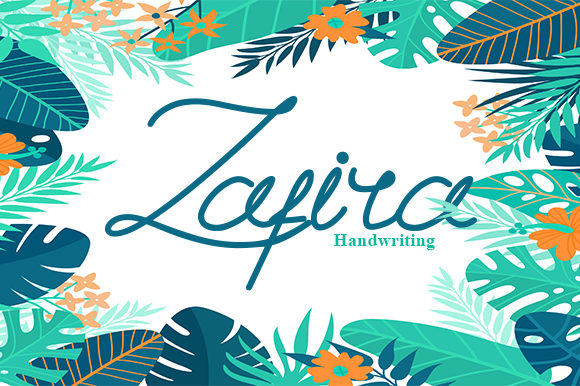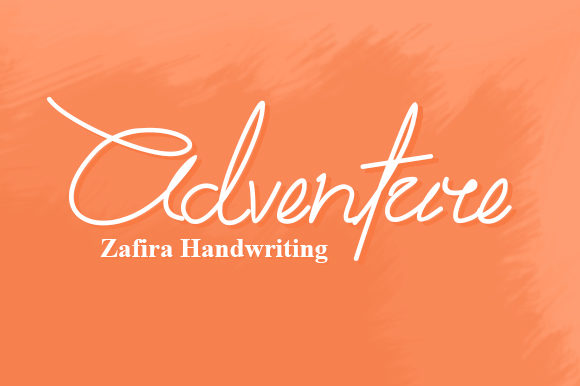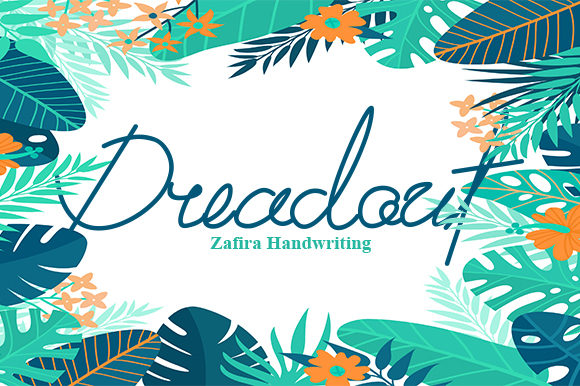
HomeScript FontsZafira Font Script Fonts Zafira Font FacebookTwitterPinterestWhatsApp Zafira Font Poster 2 Zafira Font Poster 3 About Zafira Font Zafira is a beautiful and light handwritten font with an elegant vibe. It will elevate any creative project! DOWNLOAD NOW People also explored Realistic Mock-ups on Vintage Background Monday Miracle Font Mother Font Storm Warning Duo Font Feminie Font Nori Steak N Grill Font Cute Plaid Font Ketty Font 176 0 TagsZafira Font Previous articleHarith Script FontNext articleBlack Finger Font LEAVE A REPLY Cancel reply Comment: Please enter your comment! Name:* Please enter your name here Email:* You have entered an incorrect email address! Please enter your email address here Website: Save my name, email, and website in this browser for the next time I comment. Personal Use Free Strings Personal Use Free Read more about this font Girl Personal Use Free Read more about this font Quick Count Personal Use Free Read more about this font My Ugly Handwritting Personal Use Free Read more about this font BLOG Free vs Paid Fonts: Why Investing in Premium Fonts Is Worth It Free vs Paid Fonts: Why Premium Fonts Are Worth It in 2025 The debate of free vs paid fonts continues in the design world. While... Best Fonts for YouTube Videos: Make Your Thumbnails Stand Out The 10 Best Handwriting Fonts to Add Personality to Your Designs Best Fonts for T-Shirt Design – Top 2025 Picks